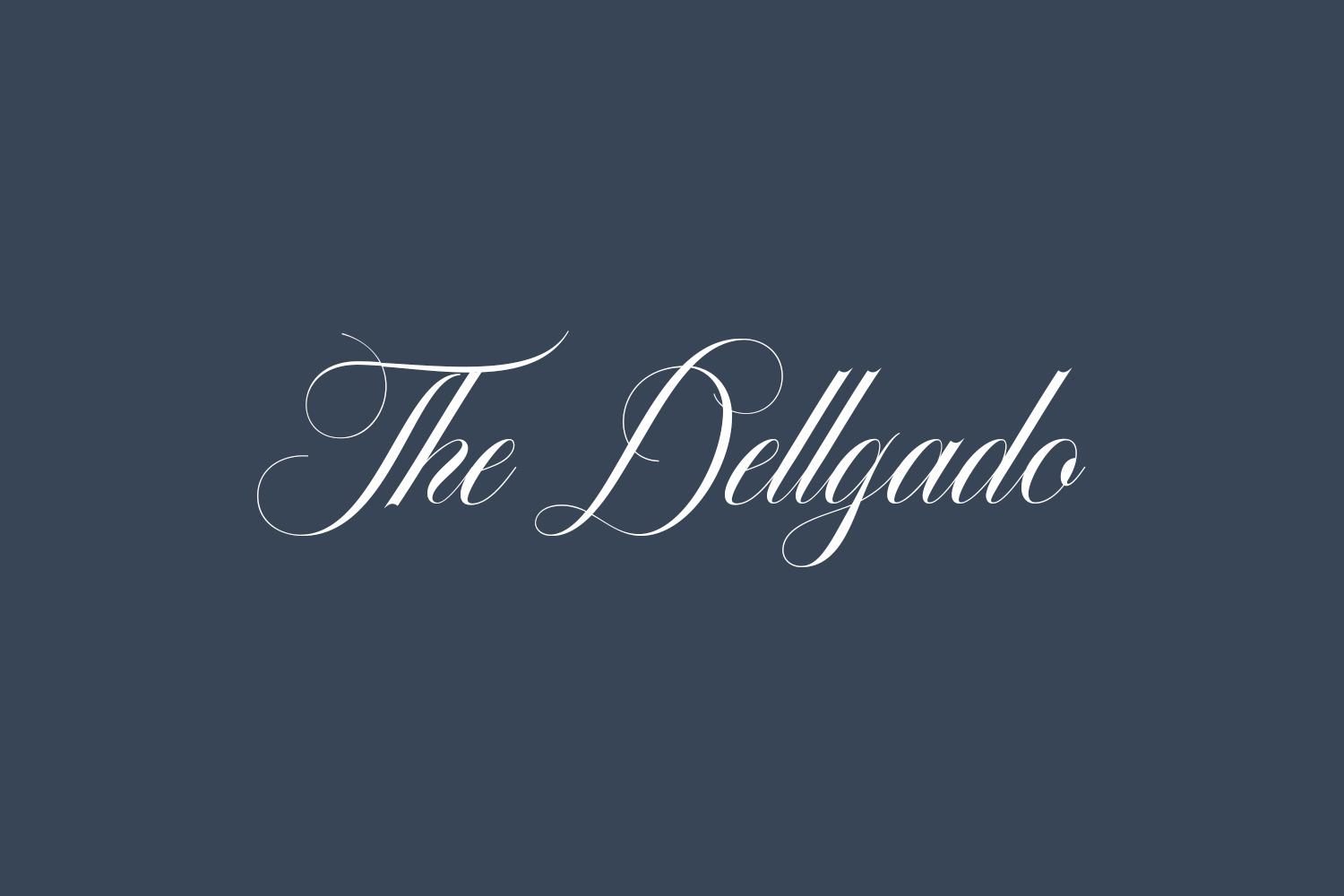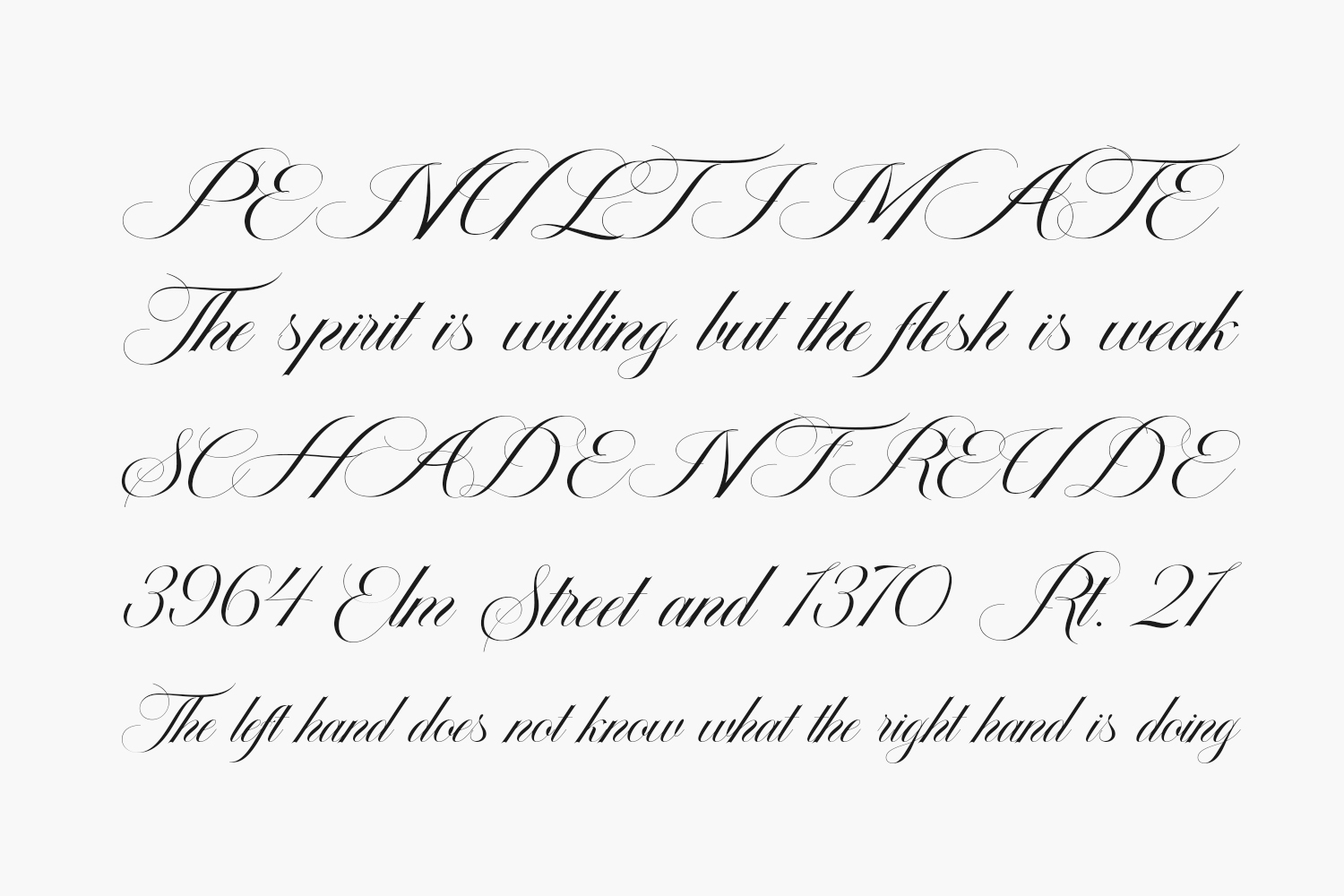
The Dellgado Free Font exudes a delightful blend of charm and elegance. Its stunning appearance enhances various designs, including wedding invitations, thank you cards, quotes, greeting cards, logos, business cards, and any project that requires a touch of exquisite handwriting. The Dellgado Free Font is free for personal use only. Please purchase the full version for commercial use.